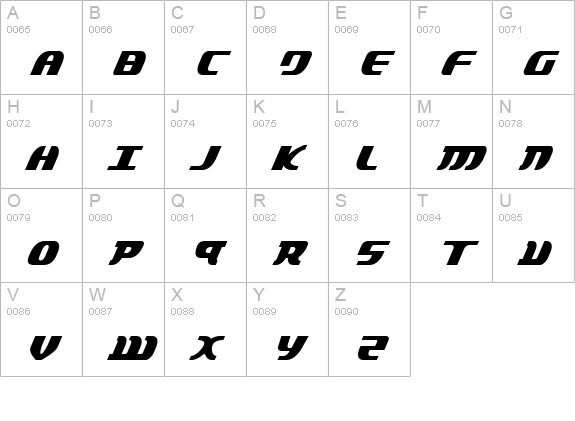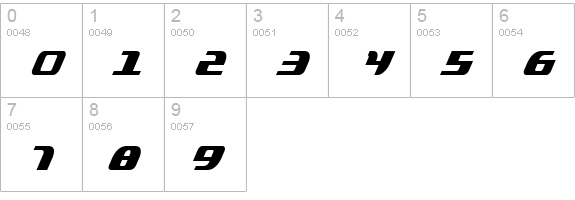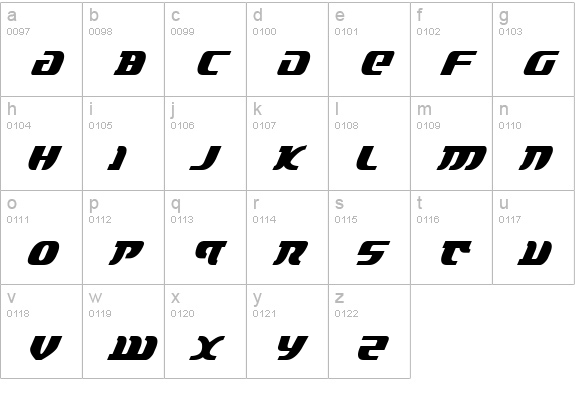
Lord of the Sith Cond Italic is a distinctive, condensed-width, italic variant in the Lord typeface family \xE2\x80\x94 well suited to design and typography projects.
Lord of the Sith Cond Italic font is a bold and powerful typeface that exudes an aura of dominance and control. Its sleek and stylish design is perfect for conveying a sense of authority and strength in any project. The italicized letters add a touch of elegance and sophistication, making this font ideal for titles, headings, and other prominent text. Best of all, Lord of the Sith Cond Italic font is available for free download at FontsMarket.com. This means you can easily add this striking font to your collection without any cost, making it a valuable asset for all your design needs. Don't miss out on the opportunity to enhance your projects with the commanding presence of Lord of the Sith Cond Italic font. Download it today and unleash the power of the dark side in your designs.